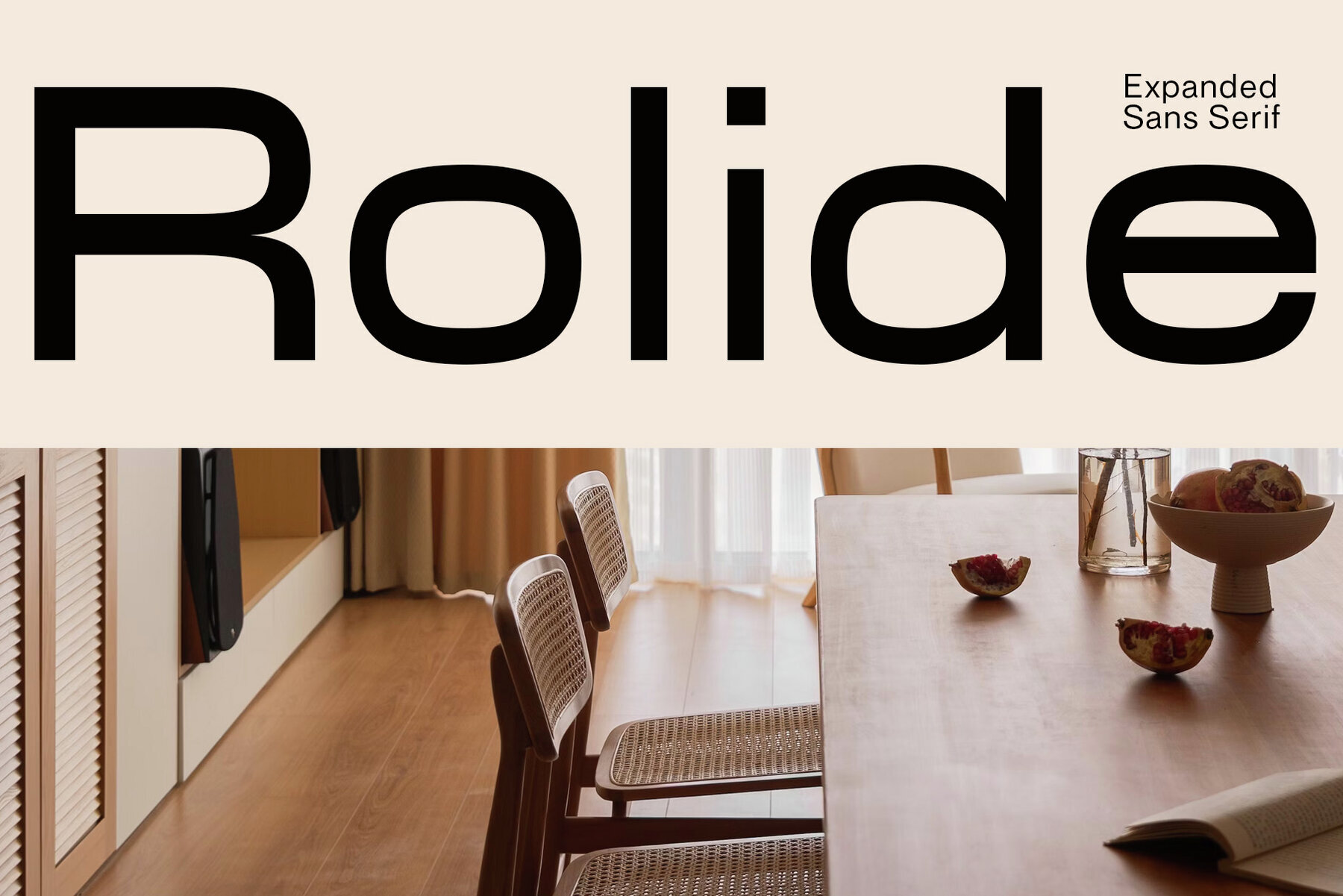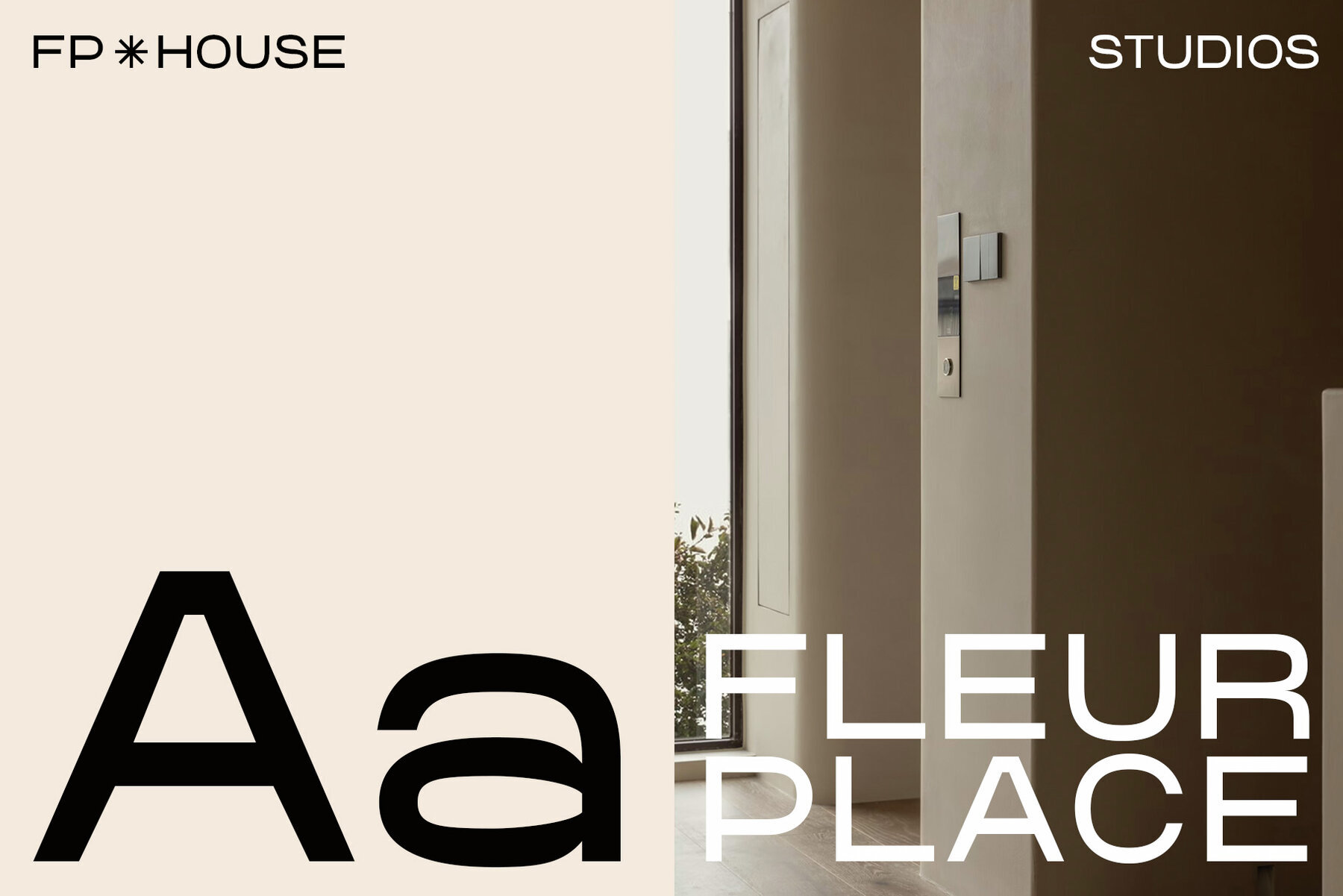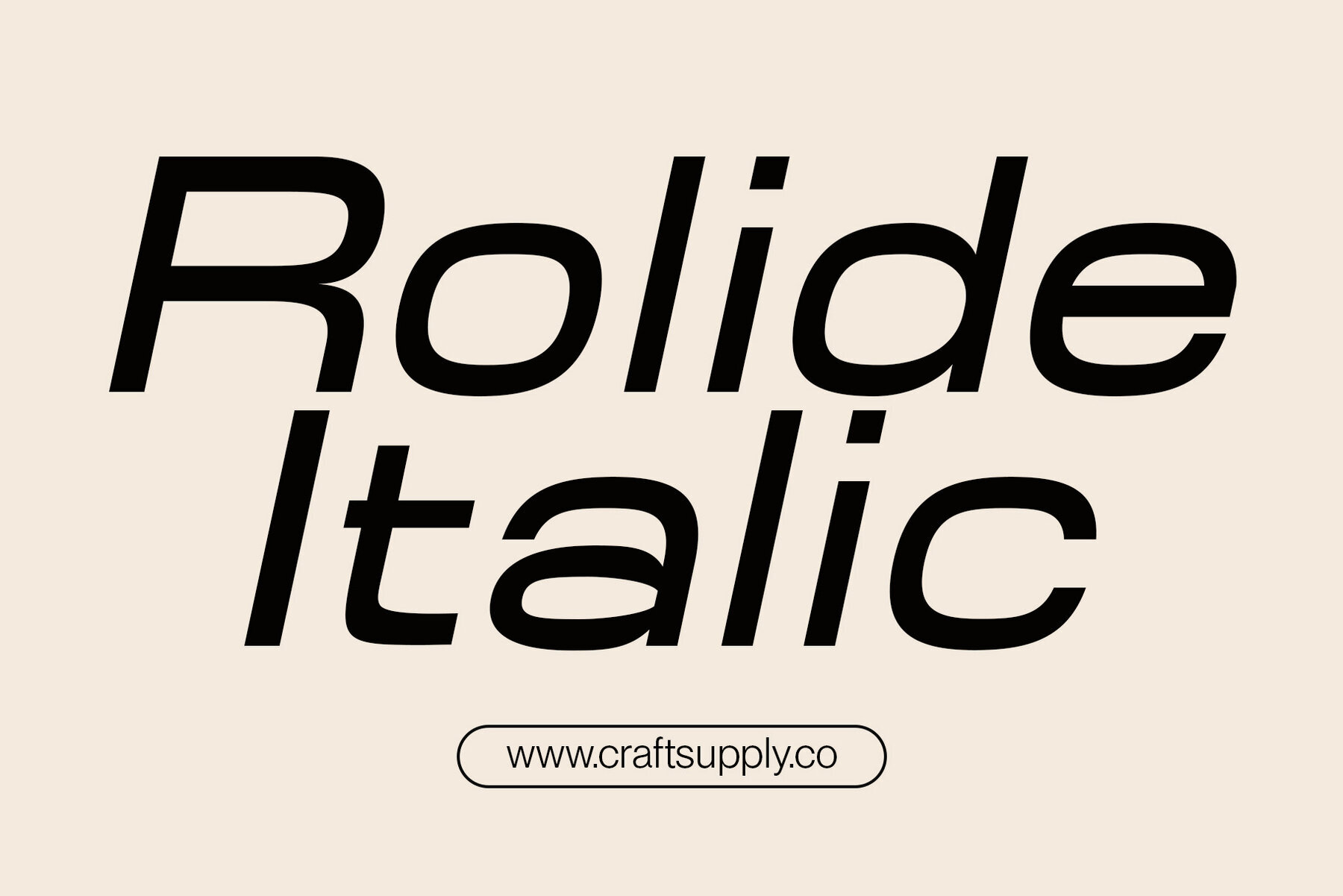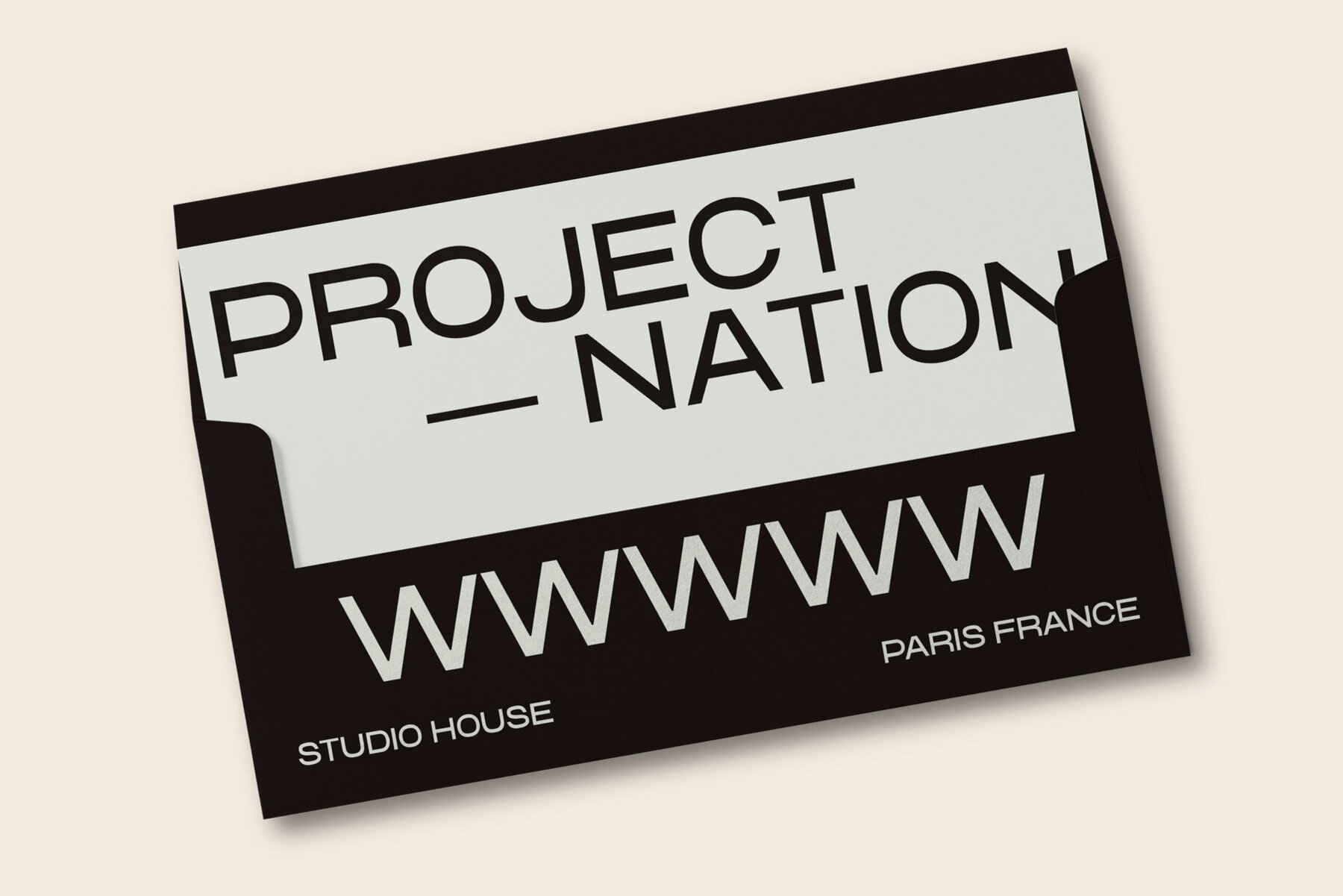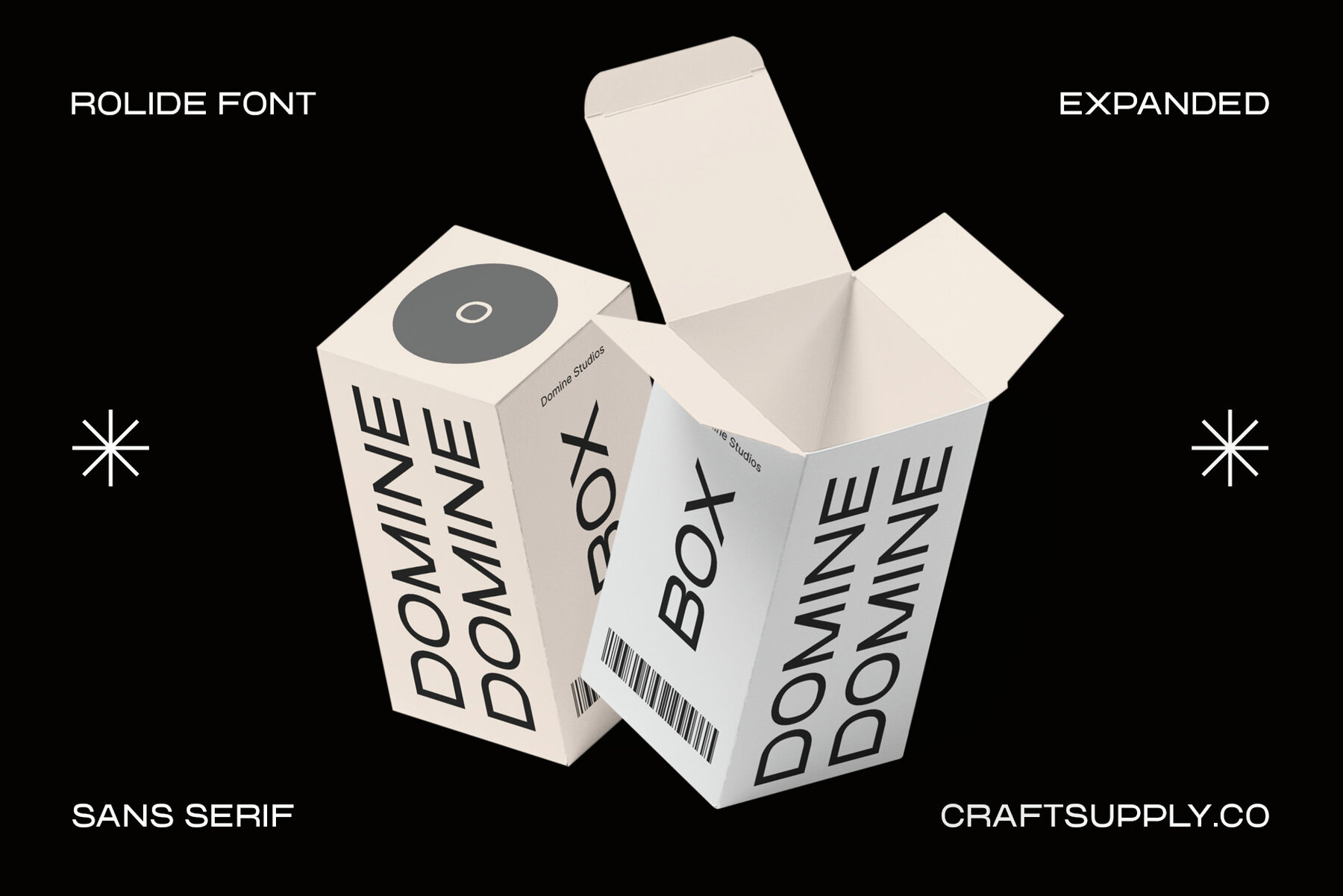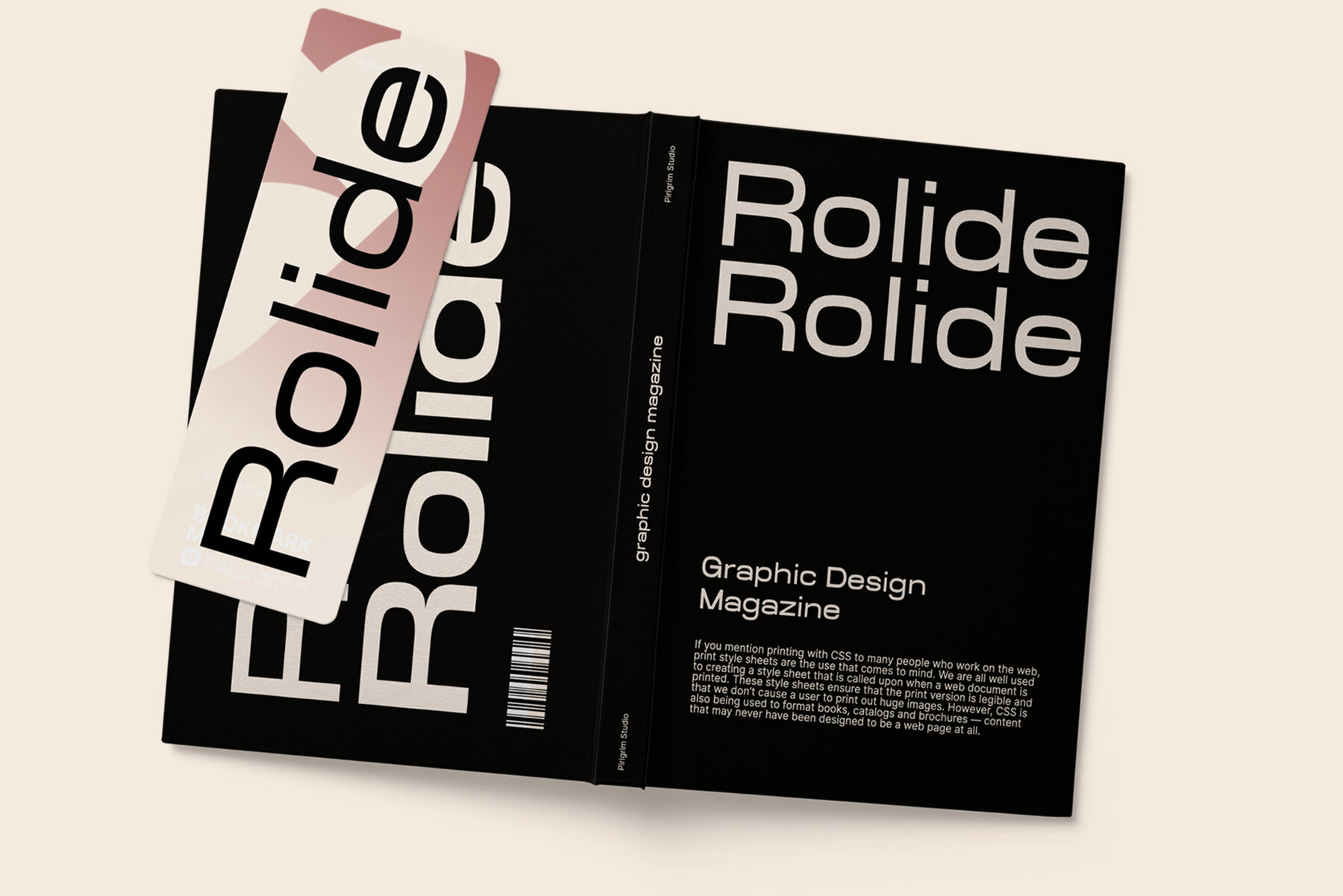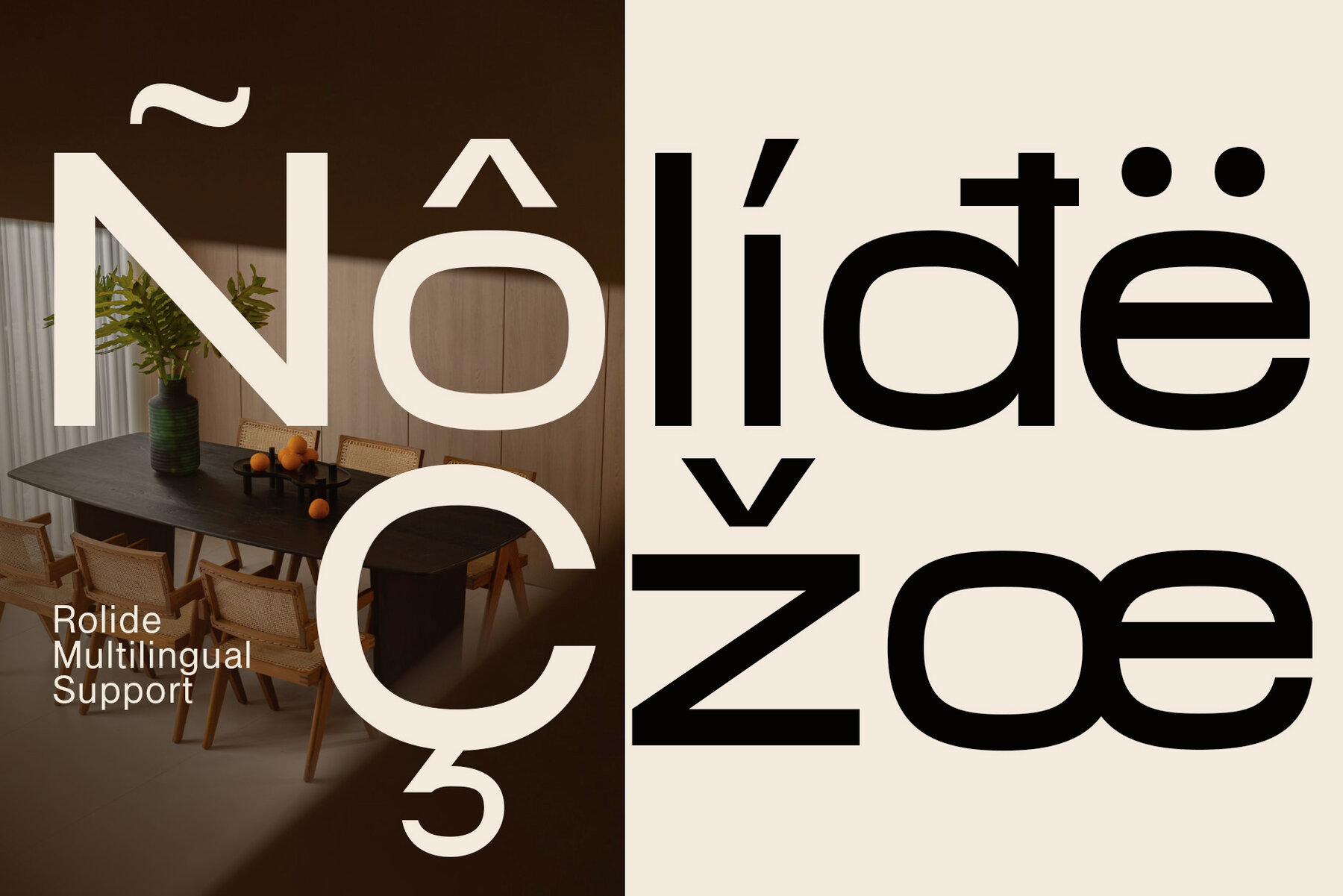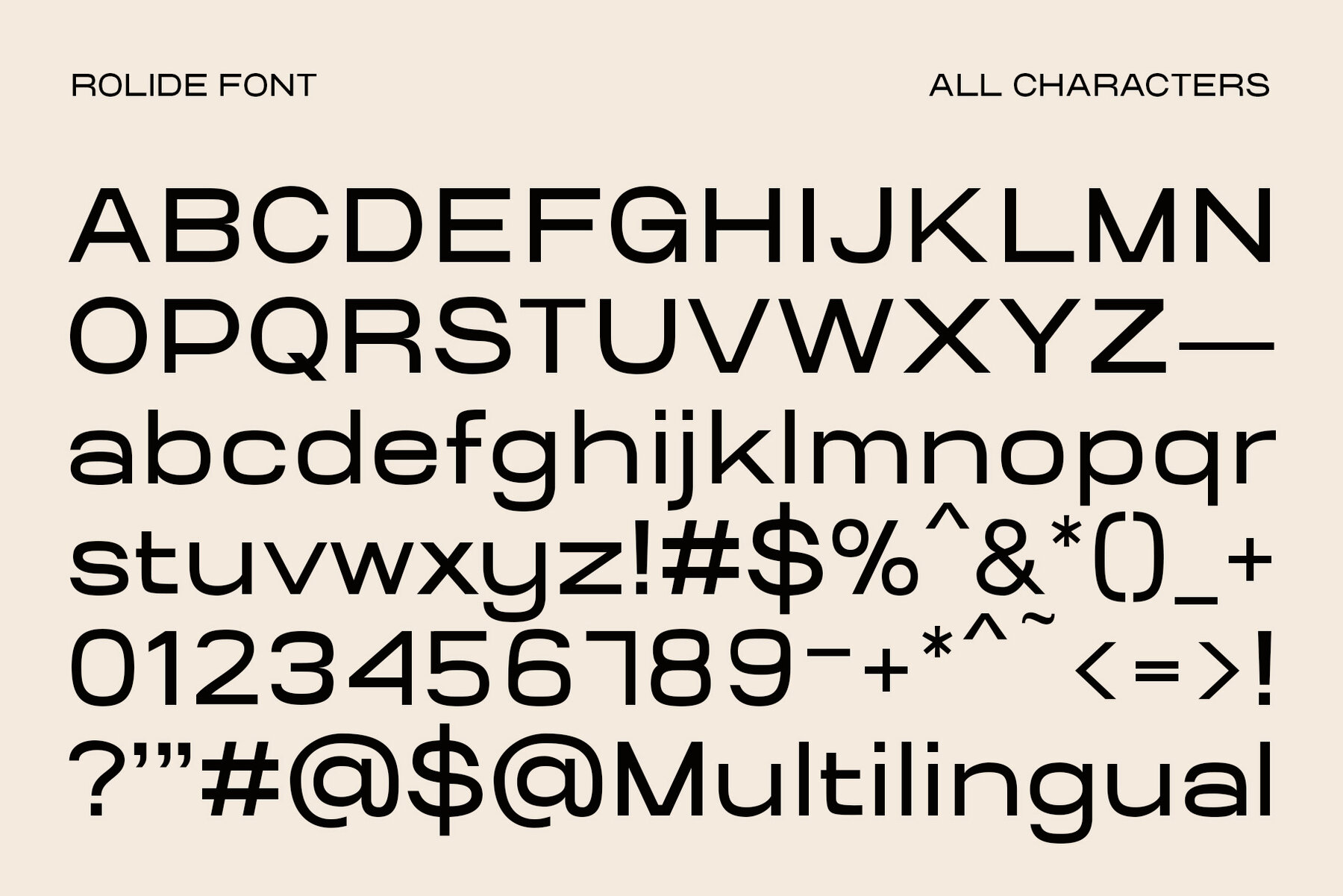
Rolide Font
Rolide, the Expanded Sans Serif by Craft Supply Co., brings a unique blend of contemporary charm with its distinctive wide and boxy shape. Rolide is a versatile design solution, perfect for both titles and body text. The font's non-bold style maintains a harmonious balance between subtlety and impact, making it suitable for various design needs. The wide and expanded characters of Rolide add a modern touch to any project. They provide a distinctive aesthetic that stands out without overwhelming the content.Rolide: An Expanded Sans Serif with Contemporary Charm
Versatile Design Solution
Wide & Expanded Features